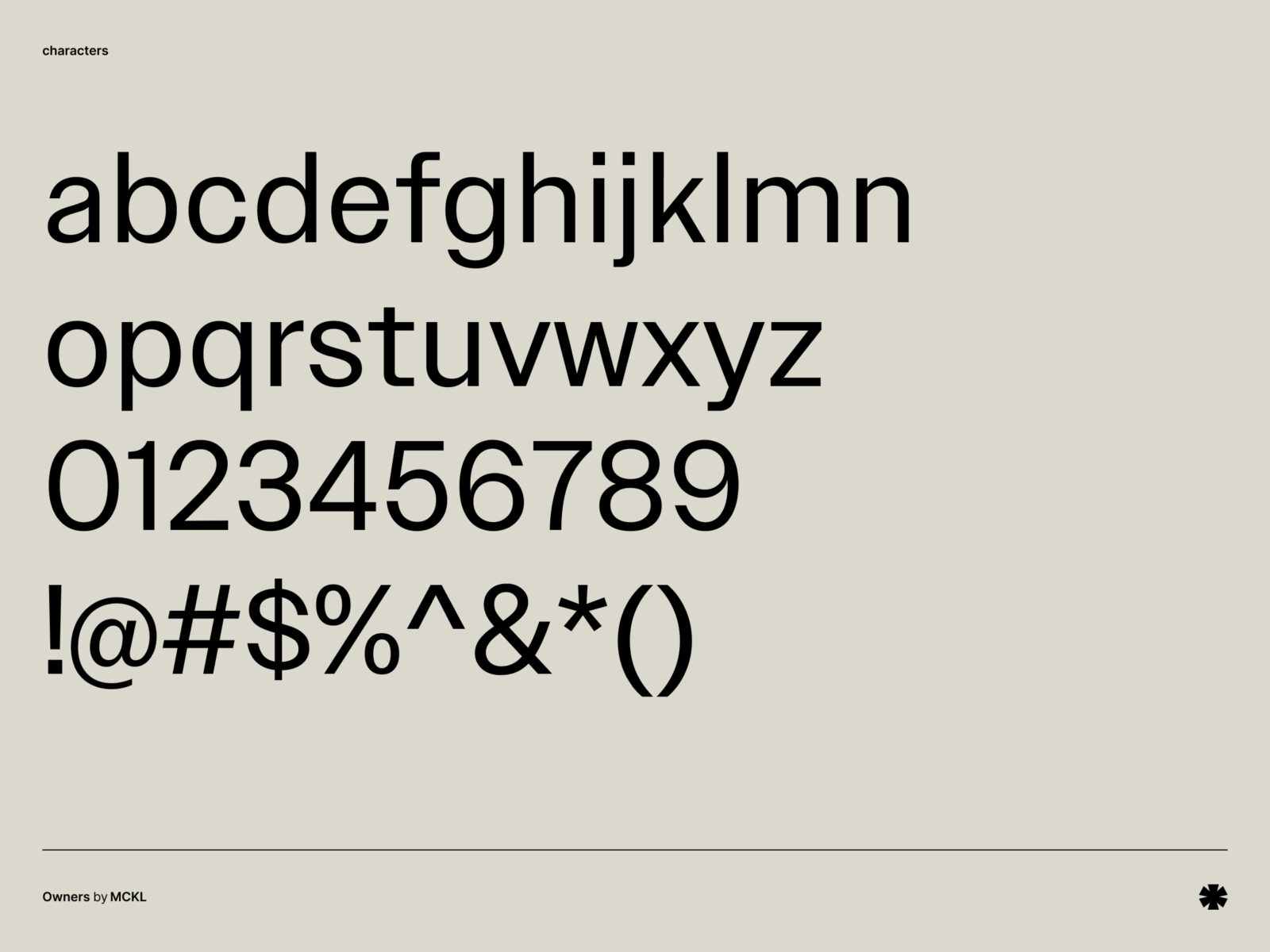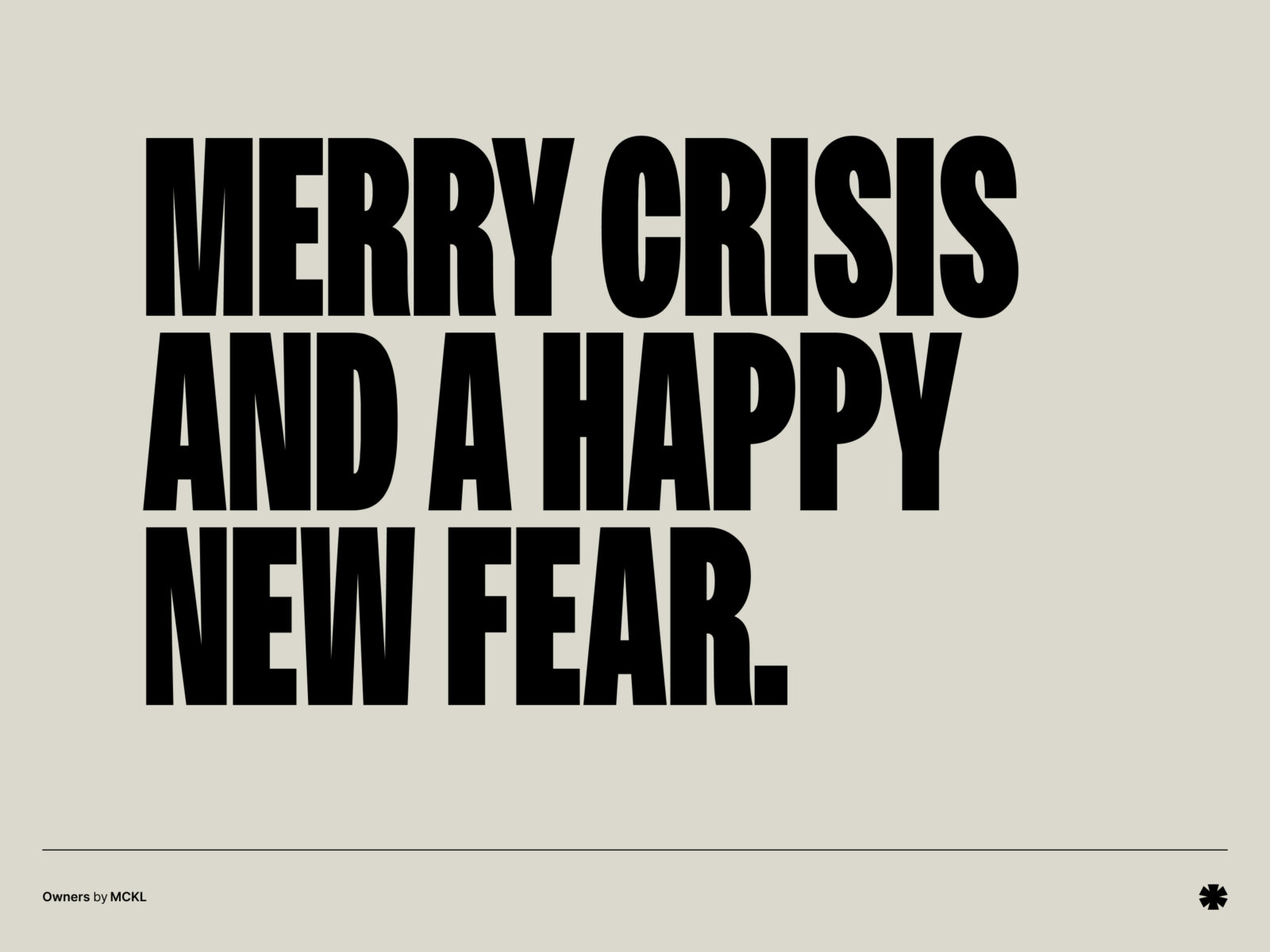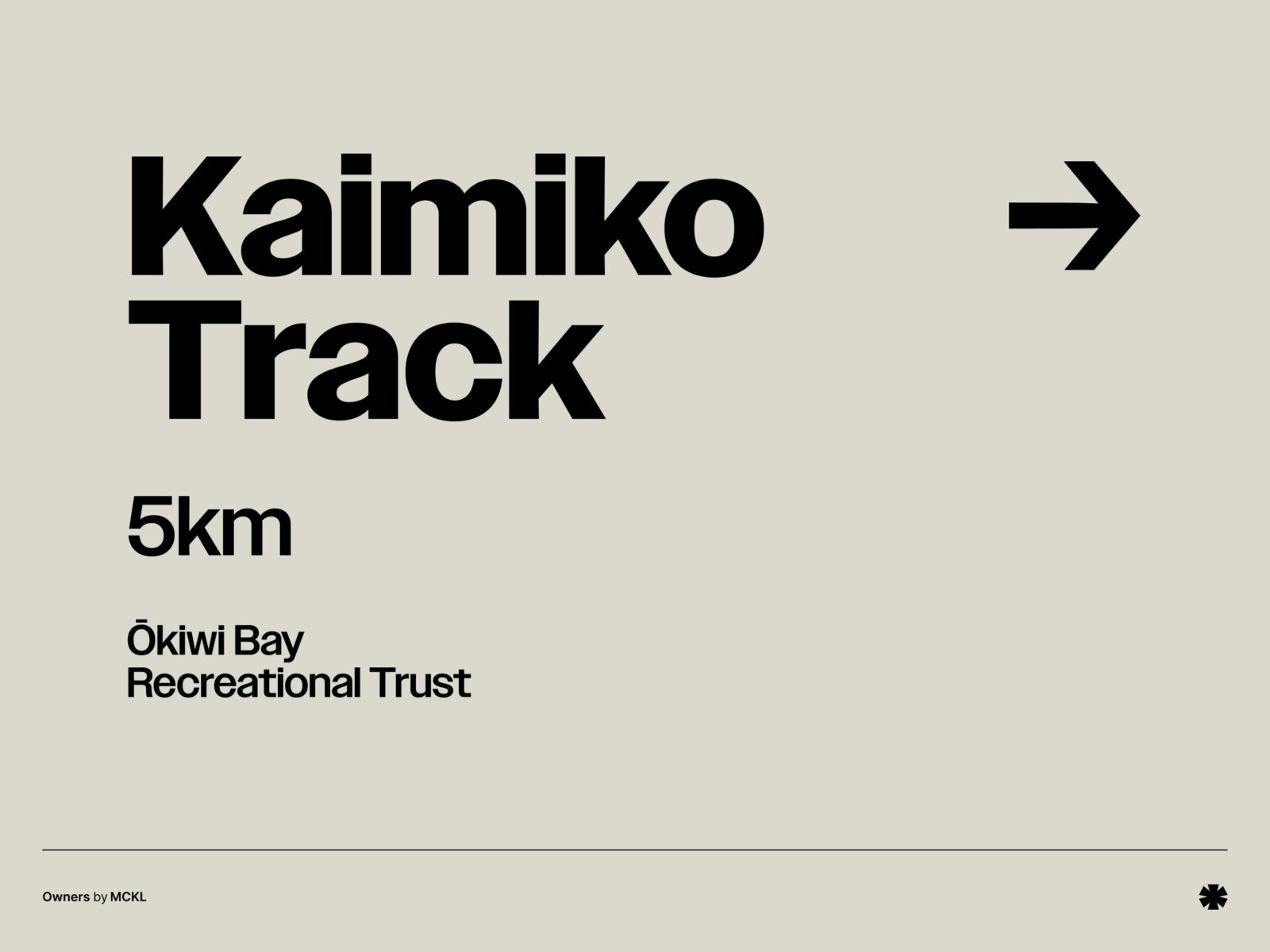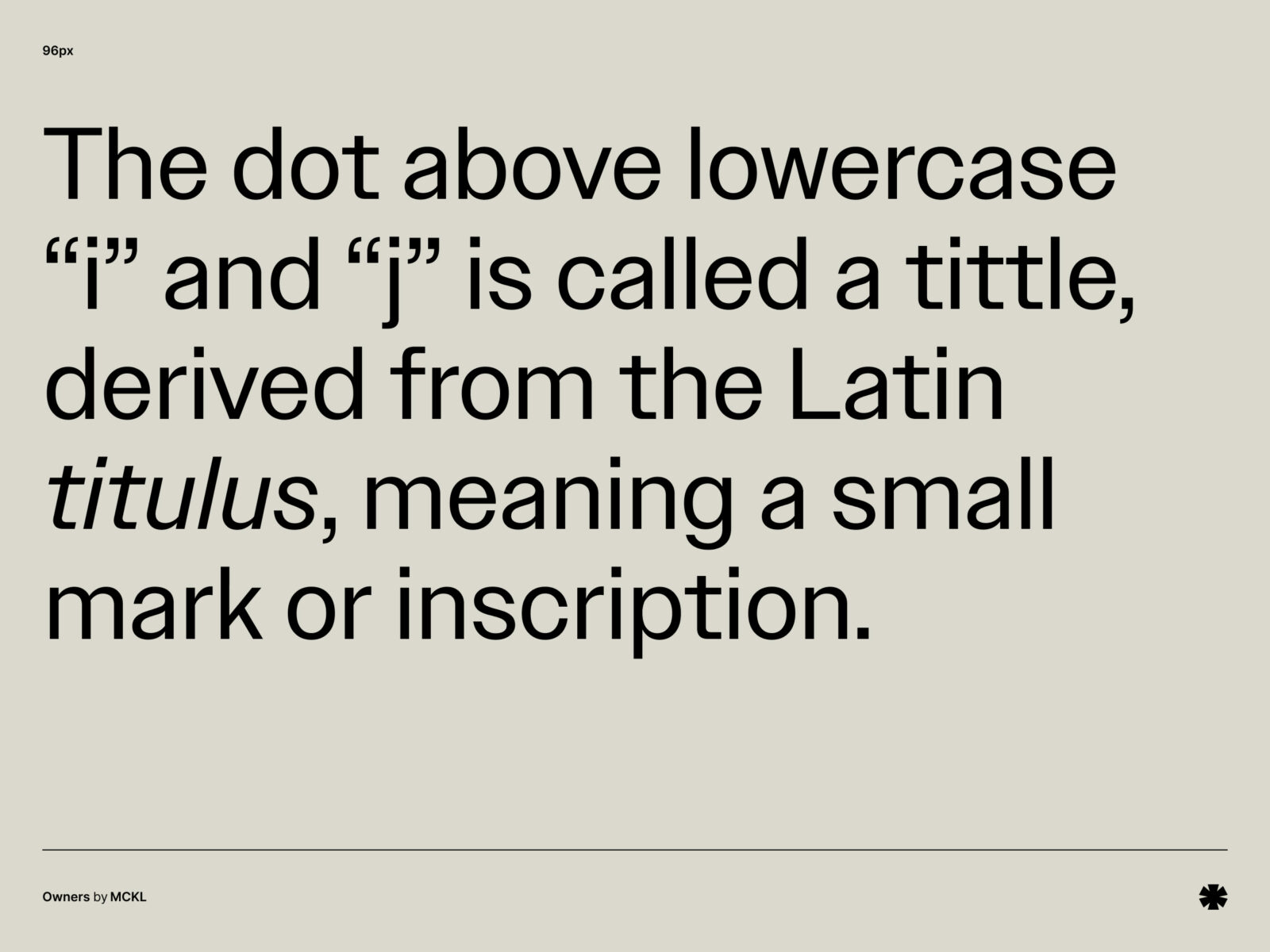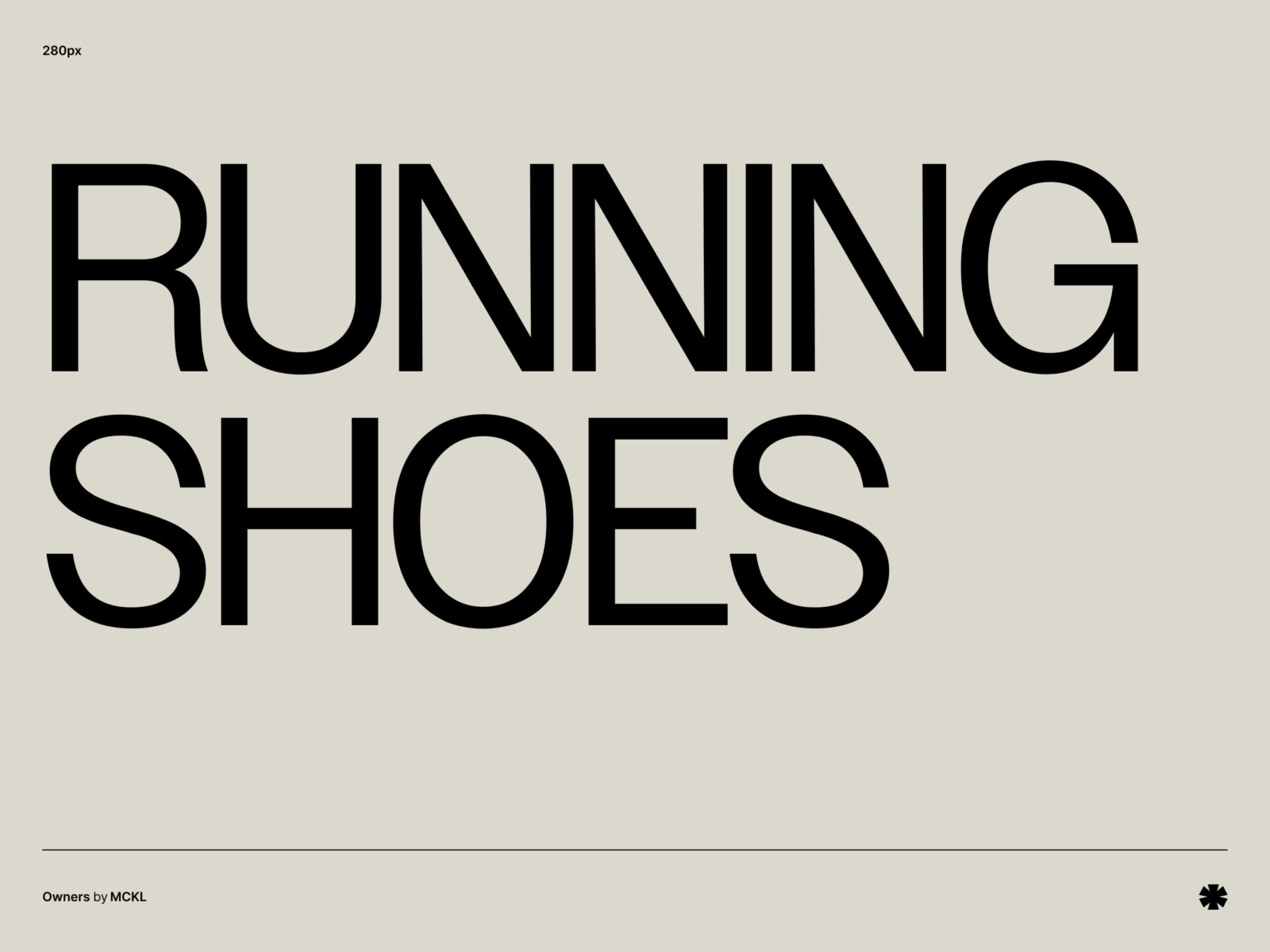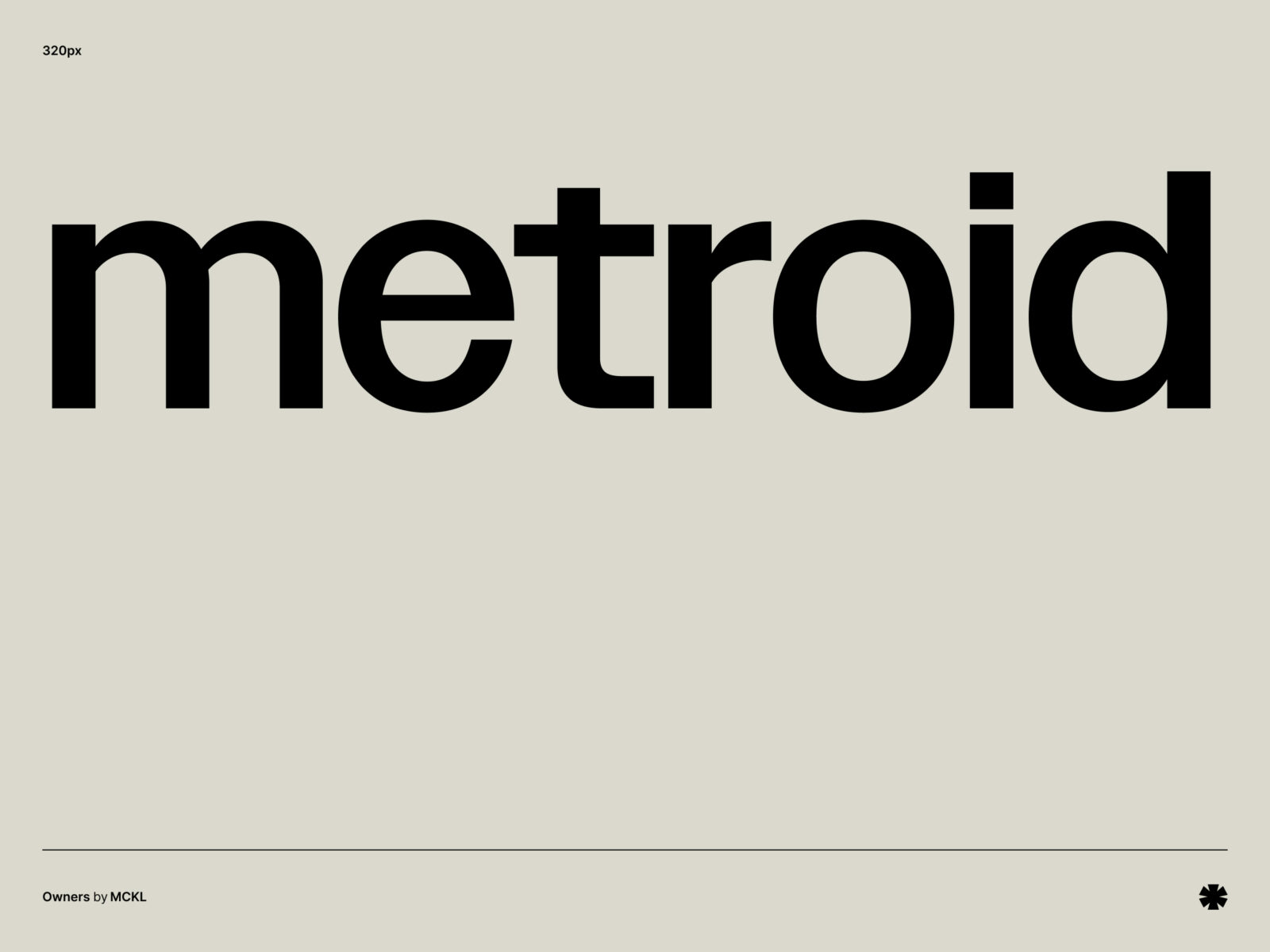
Owners is an expressive font family inspired by the dynamic energy of handmade Los Angeles signage, offering diverse weights and widths for impactful headlines, logos, and small text.